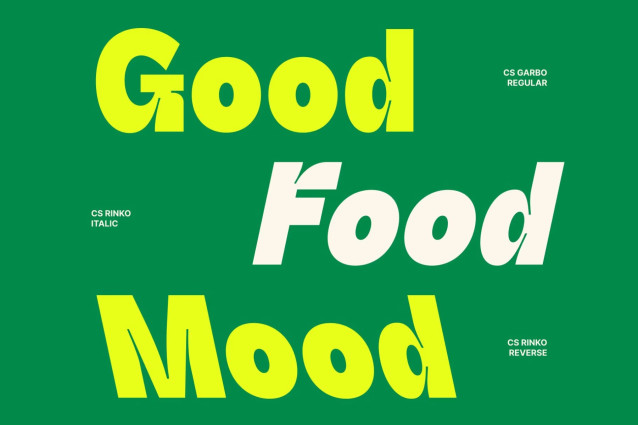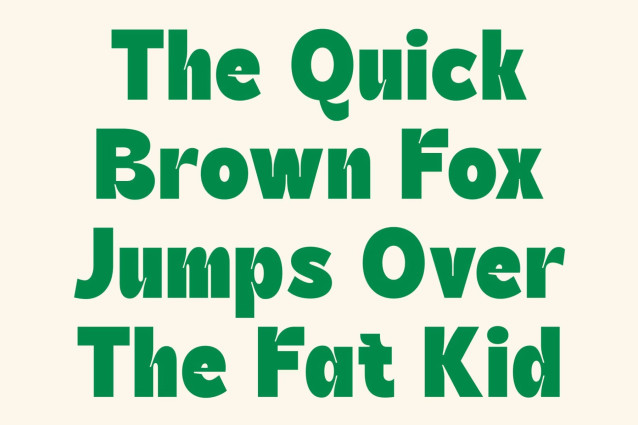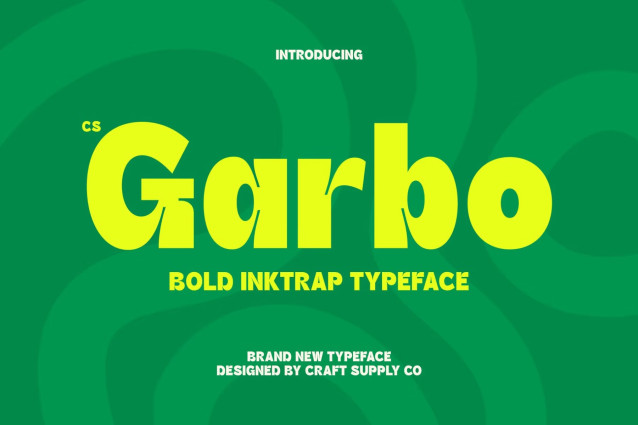
CS Garbo – Inktrap Font
CS Garbo – Bold Sans Serif Font: Where Clean Precision Meets Expressive Impact
Strong Letterforms with Contemporary Confidence
This is a bold sans serif font designed to deliver powerful visual impact through its strong, modern letterforms. Its clean construction and confident proportions create a commanding presence that immediately captures attention, making it ideal for designs that require clarity, strength, and contemporary appeal.
Inktrap Details for Enhanced Readability
Carefully crafted inktrap details are integrated into the letterforms, adding both functional and aesthetic value. These distinctive cuts improve readability while introducing subtle visual character, creating a refined balance between technical precision and creative expression. The result is a font that remains sharp, clean, and highly legible even at larger display sizes.